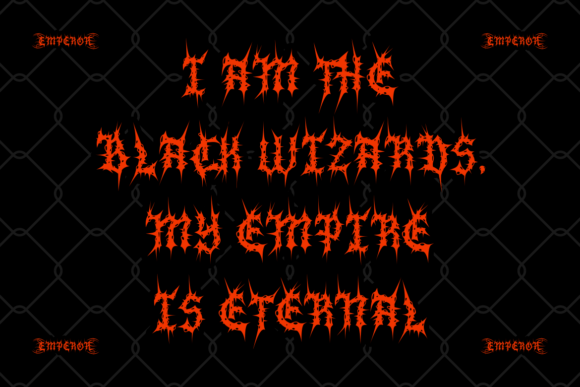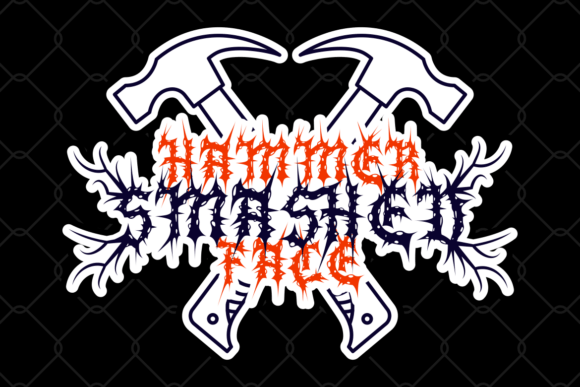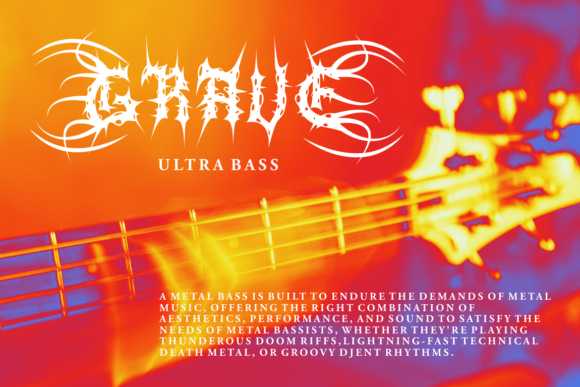
Introduction to Silent Scream Font
You’ve spent hours agonizing over the perfect font to capture the essence of your latest design project. But what if you could tap into the raw energy of the metal genre and unleash a font that screams with intensity? Meet the Silent Scream Font – a fierce and edgy typeface that’s about to revolutionize your design game.
Imagine being able to convey the darkness and aggression of a death metal album cover or the gothic charm of a horror-themed movie title. With the Silent Scream Font, you can do just that. This high-quality design resource boasts a unique structure that brings a sense of chaos and power to any text, making it perfect for creative projects that demand attention.
Whether you’re a seasoned designer or just starting out, the Silent Scream Font is a valuable addition to your design arsenal. And the best part? It’s available for free download, complete with a transparent background to ensure seamless integration with your designs.
Key Features of Silent Scream Font
- High-quality design resource with a unique, eerie aesthetic perfect for creative projects.
- Designed to evoke a sense of mystery and suspense, making it ideal for horror-themed projects, Halloween designs, or any other creative endeavor that requires a haunting atmosphere.
- Unique characteristics include its bold, distressed typography and intricate details, making it a standout design resource for creatives.
- Perfect for use in graphic design, digital art, and other creative pursuits where a high-quality, one-of-a-kind font is desired.
Honest Review: Silent Scream Font
As a designer, I’m always on the lookout for unique and high-quality fonts to enhance my creative projects. The Silent Scream Font is one such resource that caught my attention.
Here’s what works well: ✨ It’s a free download, which is a huge plus for designers on a budget. The font itself is well-designed, with a bold and striking aesthetic that’s perfect for making a statement. The transparent background allows for seamless integration with various design elements, giving me a lot of creative freedom. Additionally, the font’s versatility makes it suitable for a wide range of projects, from posters to social media graphics.
However, there are some limitations: ⚠️ The font’s boldness can sometimes make it difficult to read, especially in smaller sizes. Also, the font’s design is quite distinctive, which may not appeal to everyone’s taste.
Overall, I think the Silent Scream Font is a great design resource, and its strengths far outweigh its weaknesses. If you’re looking for a unique and eye-catching font for your next creative project, I’d definitely recommend giving it a try.
Common Use Cases for Silent Scream Font
The Silent Scream Font is ideal for a variety of creative projects, including graphic design, typography, and digital art. Use it to create eye-catching titles, headings, and text overlays for videos, presentations, and websites.